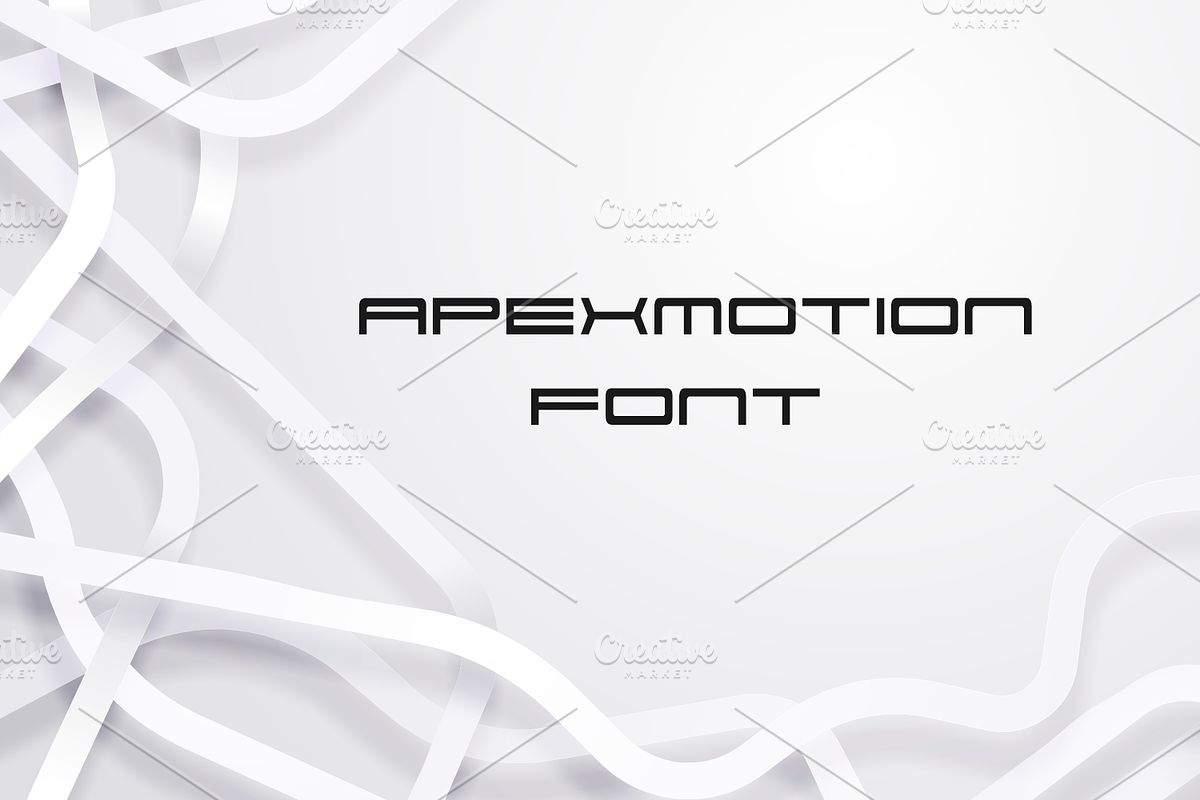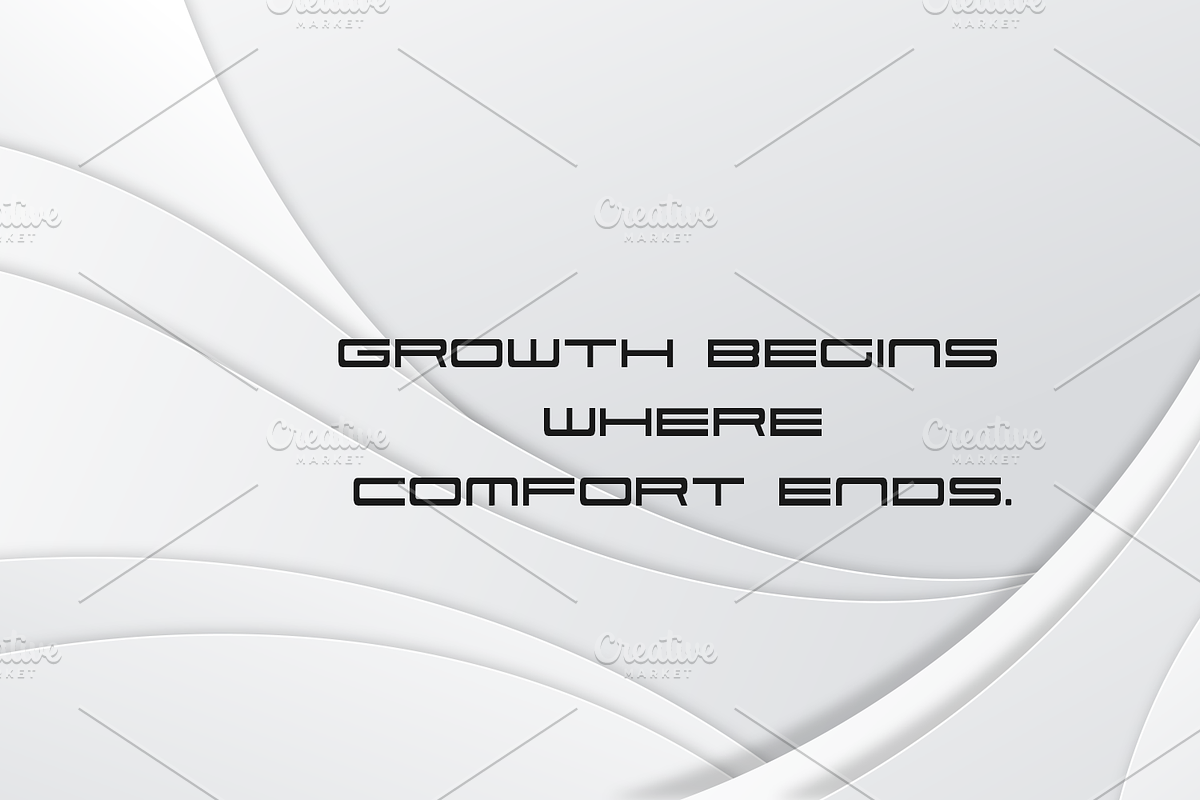
Unleash the pulse of precision with ApexMotion—a font engineered for speed, styled for luxury. Every curve captures the aerodynamic soul of performance design. From fast brands to fierce headlines, let your message roar off the grid. This isn’t just a typeface—it’s velocity you can see. ApexMotion: Where form meets horsepower.